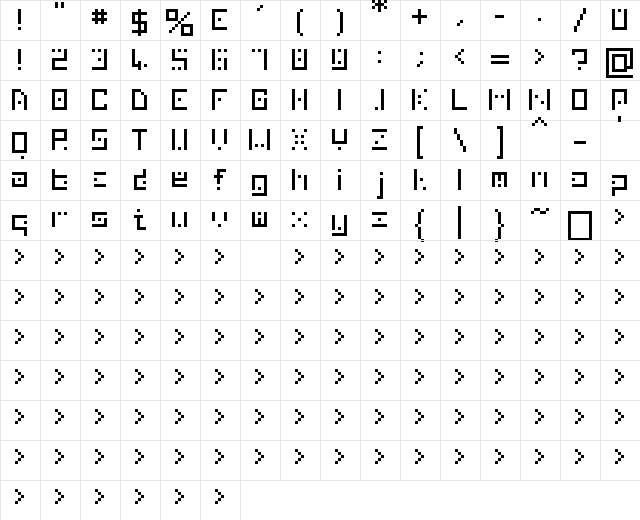
00Cryptix Regular
Design Context for 00Cryptix Typeface
00Cryptix offers clean, dependable letterforms without strong stylistic allegiance, making it a practical choice for designers who need flexibility.
Pro Tip: Use 00Cryptix in both headline and body roles to test its range before committing to a single application.